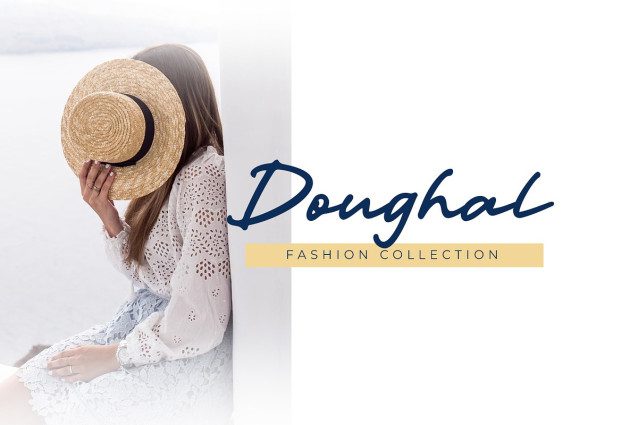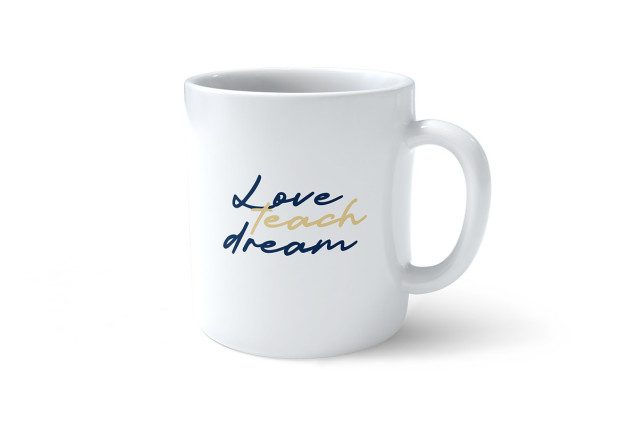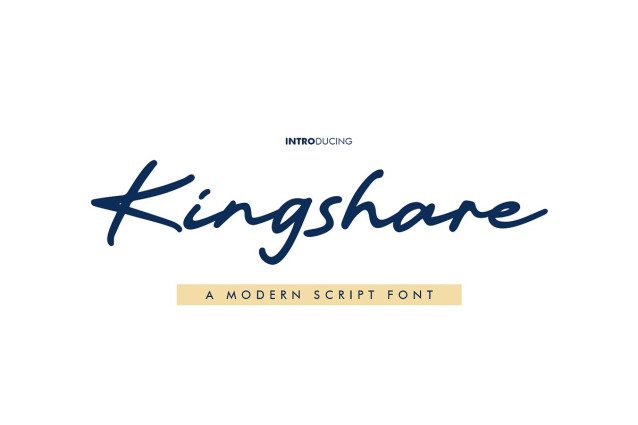
Kingshare Script Font
Kingshare Script Font is a modern script font. Kingshare font suitable for logo, branding, greeting card, poster and any design that you create…!